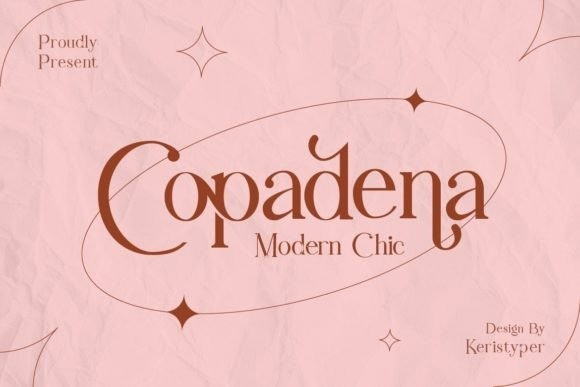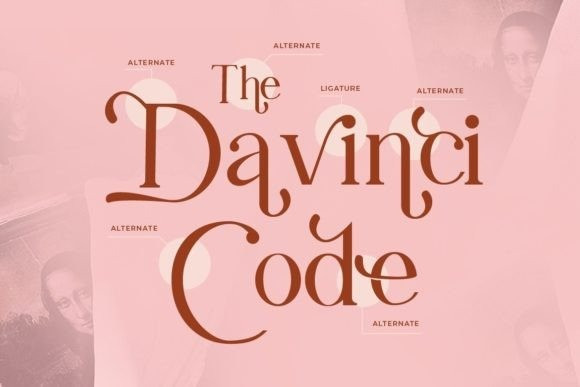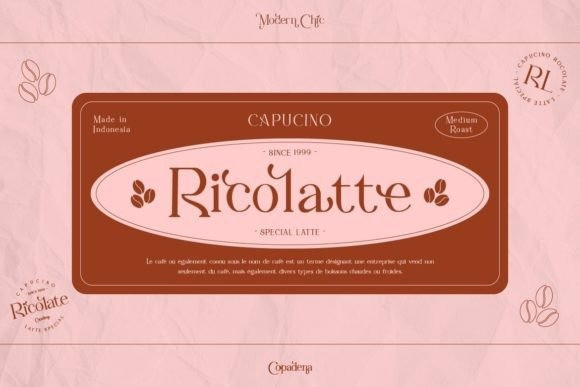
Copadena Font
Copadena is a handwritten signature font with a calligraphy flair, ideal for creating handwritten-style projects. This font is good for logo design, Social media, Movie Titles, Books Titles, short text even long text letters, and good for your secondary text font with sans or serif.